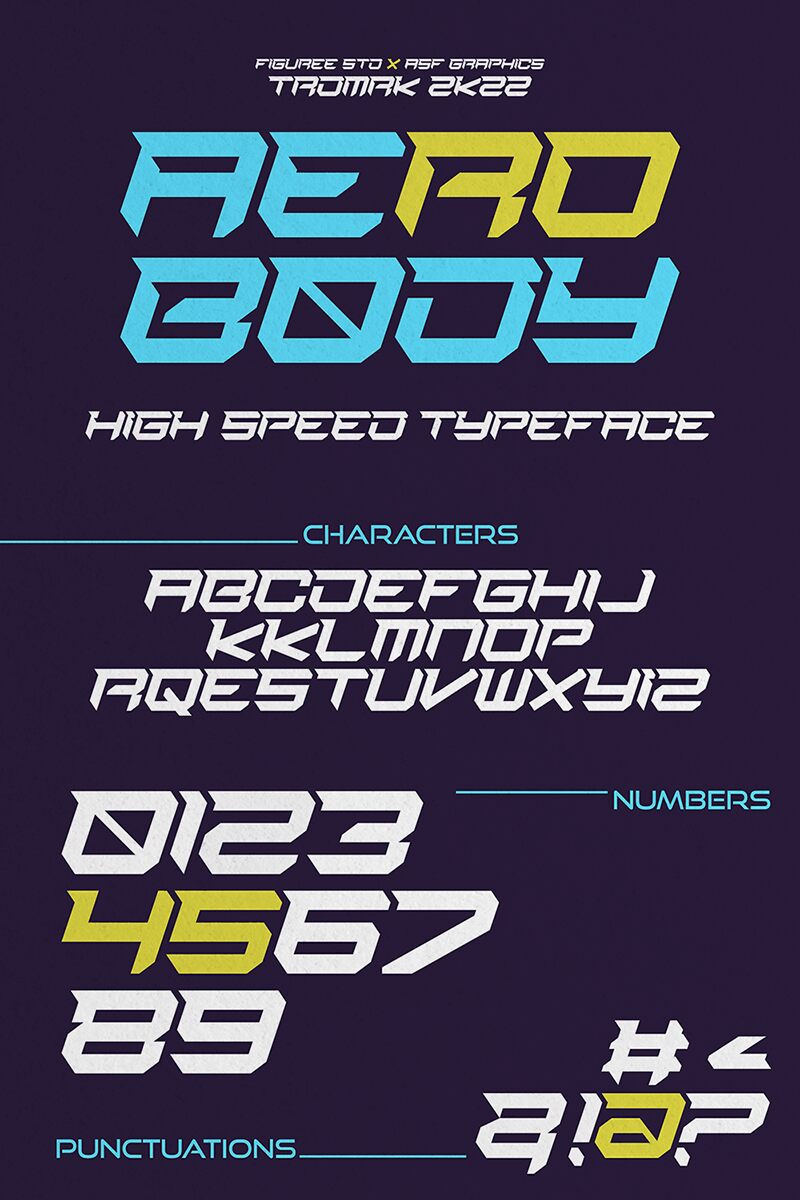
Aerobody, a dynamic creation by Figuree Studio, captivates with its bold, technologically-inspired aesthetic. This expanded display font exudes a futuristic allure, its angular forms and sharp edges evoking a sense of industrial power and cutting-edge innovation. The letters' sleek, streamlined design imparts a striking, modern sensibility, making Aerobody a compelling choice for projects seeking to convey a sense of technological prowess and avant-garde style.
The versatility of Aerobody shines through its ability to seamlessly integrate into a diverse range of design contexts. Its eye-catching presence lends itself perfectly to headline treatments, logo design, and branding collateral, where its bold personality can command attention and leave a lasting impression. Additionally, Aerobody's expanded width and robust character render it well-suited for immersive media, such as video game interfaces, movie titles, and digital signage, where its dynamic form can captivate audiences and enhance the overall visual experience.